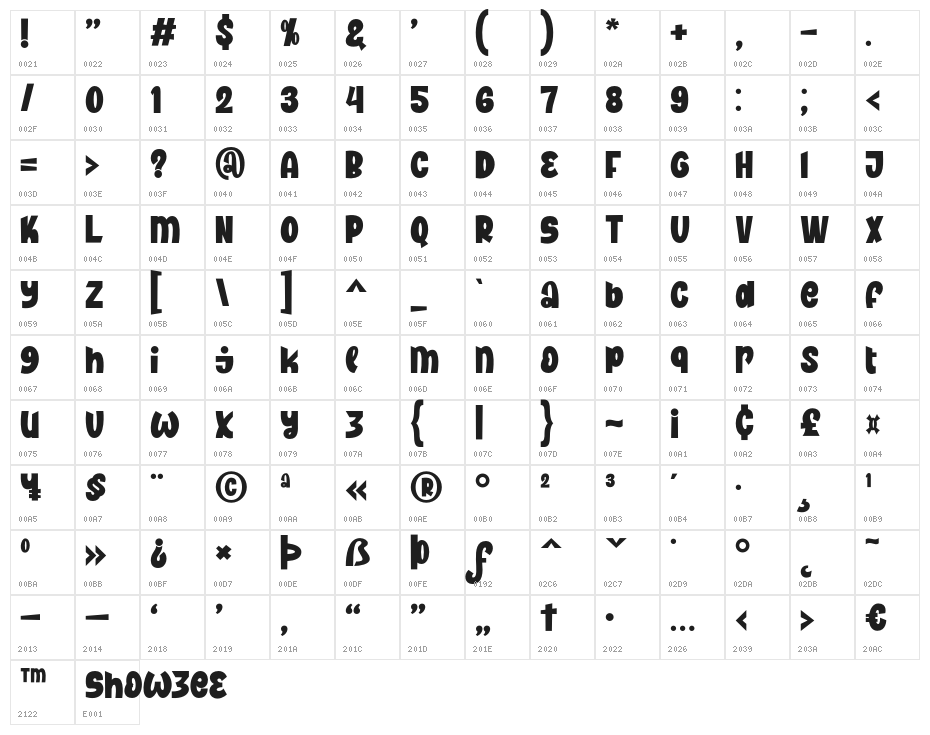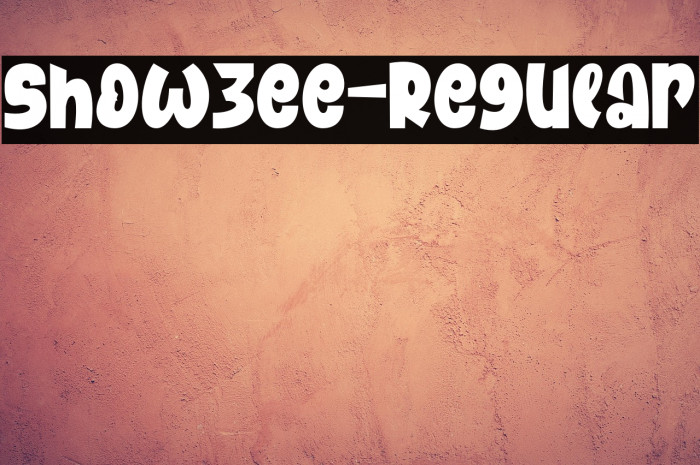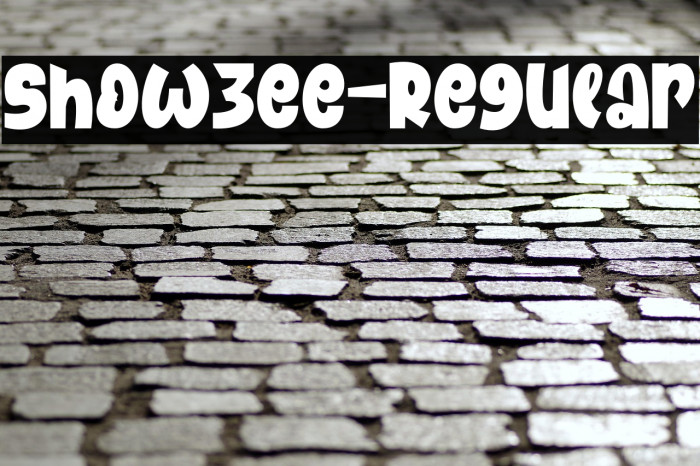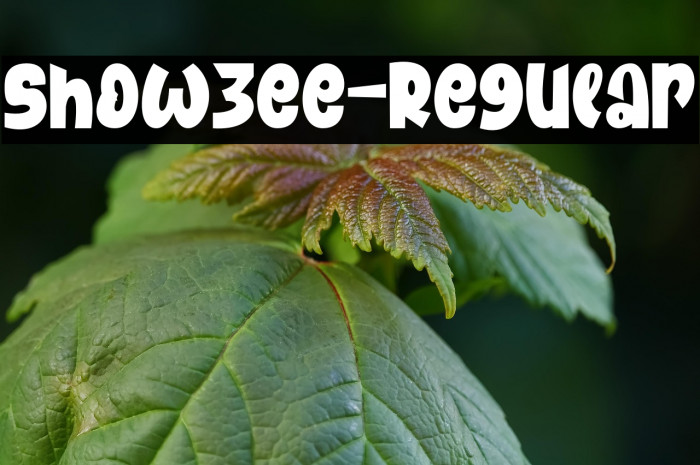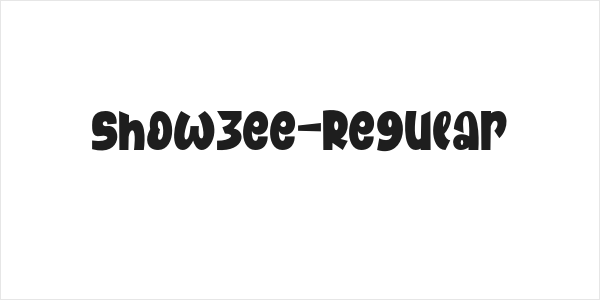
Showzee-Regular Font
Showzee-Regular Description
This font features a bold and playful design with a strong presence. The characters are rounded and thick, giving a sense of fun and approachability. The uppercase and lowercase letters maintain a consistent style, with exaggerated curves and a slightly whimsical feel. The numbers and special characters follow the same bold and rounded aesthetic, ensuring uniformity across all glyphs. The overall appearance is eye-catching and suitable for projects that require a lively and engaging typeface.
Fonts by Lettersweet Studio
| Overall Style | Playful, Fun, Bold |
| Use Case | Headlines, Posters, Branding |
| Proposed Projects | Ideal for children's books, playful branding, posters, and any design that requires a fun and engaging typeface. |